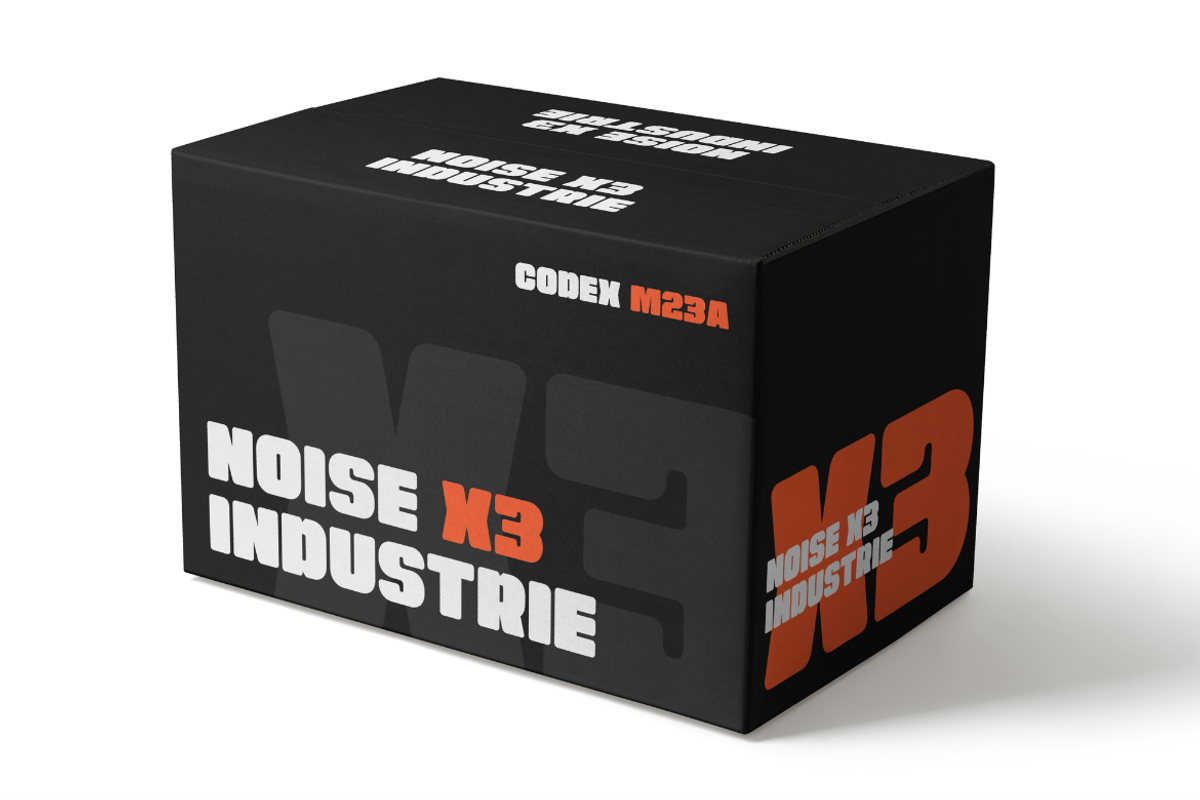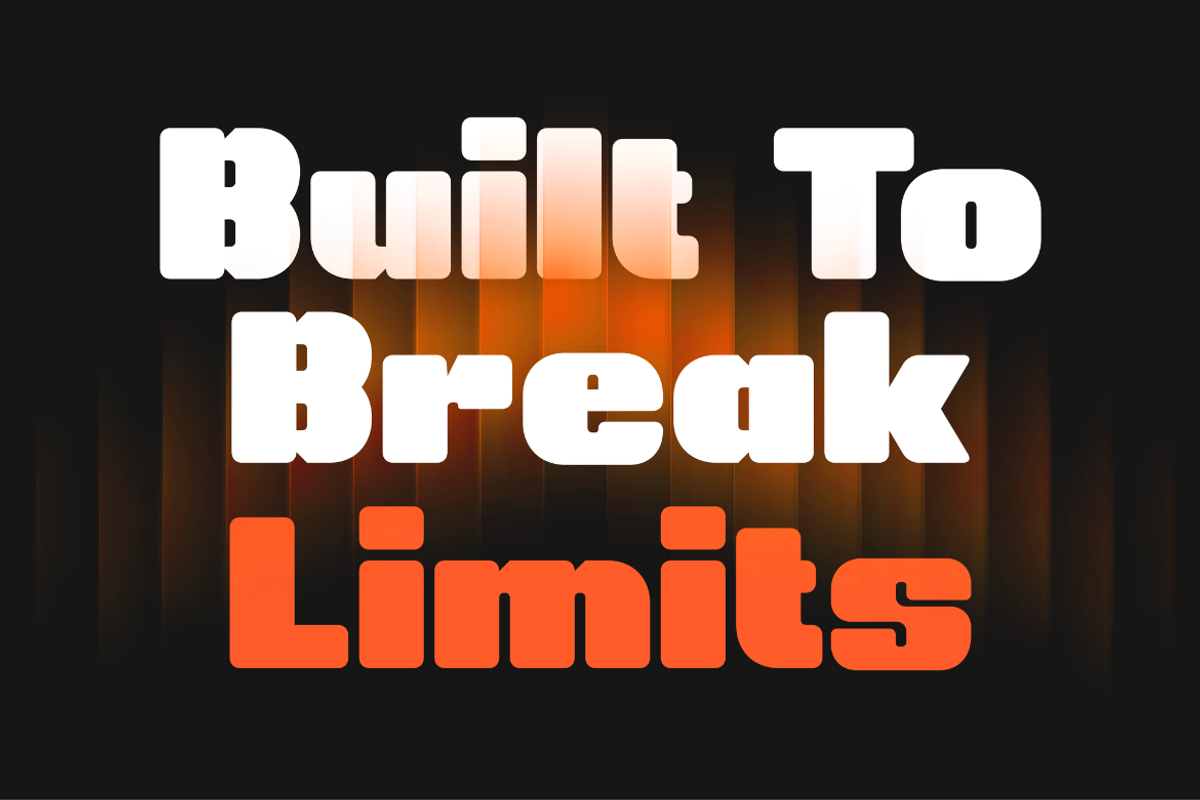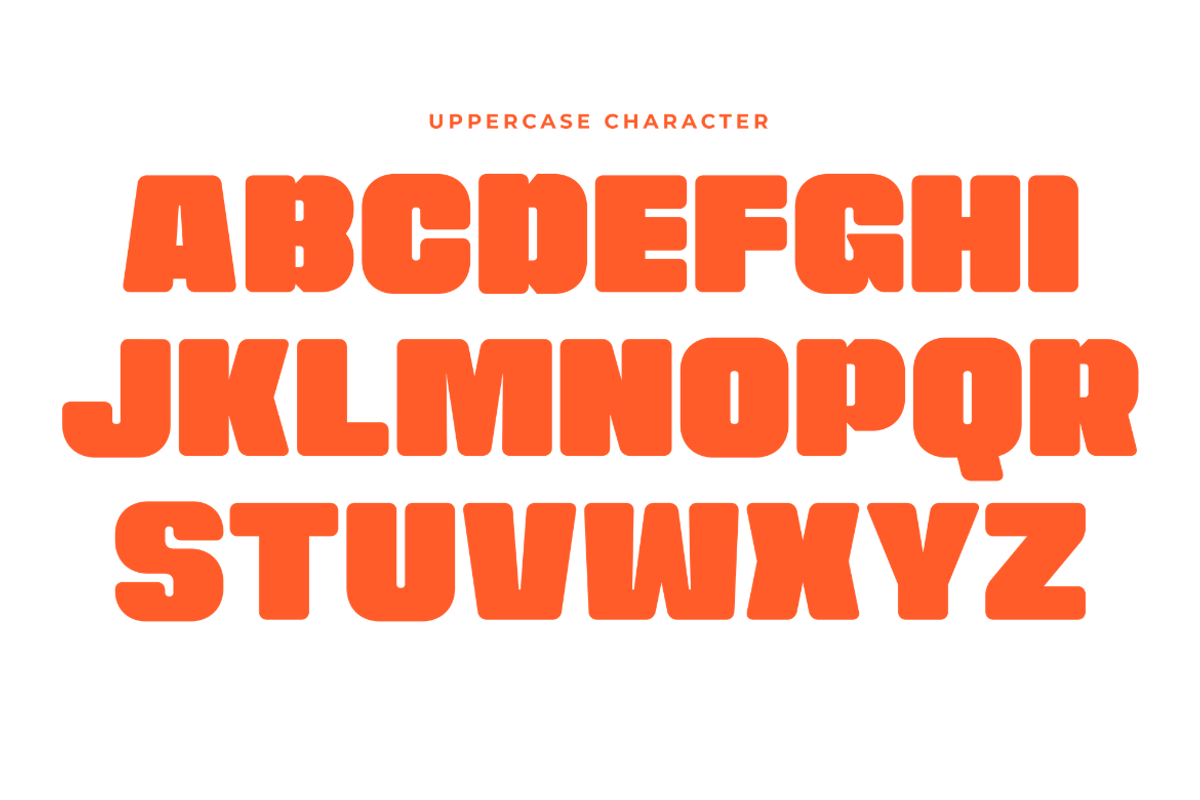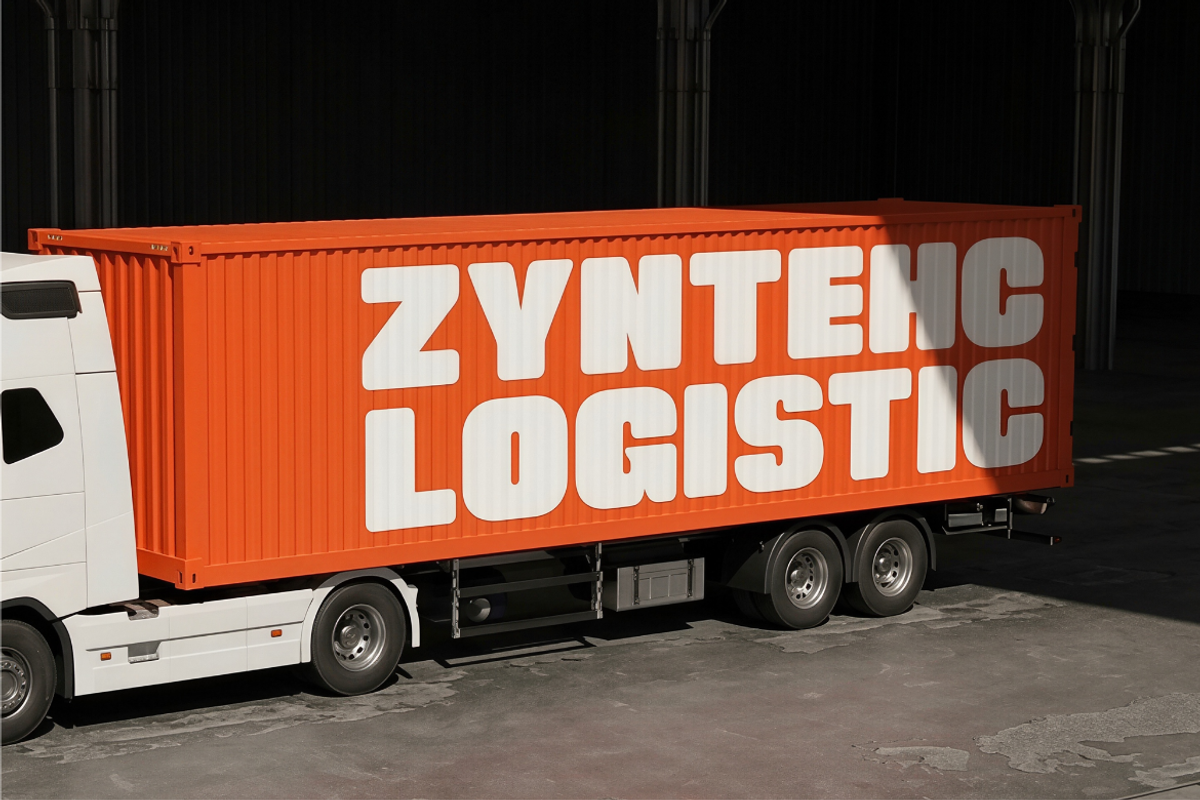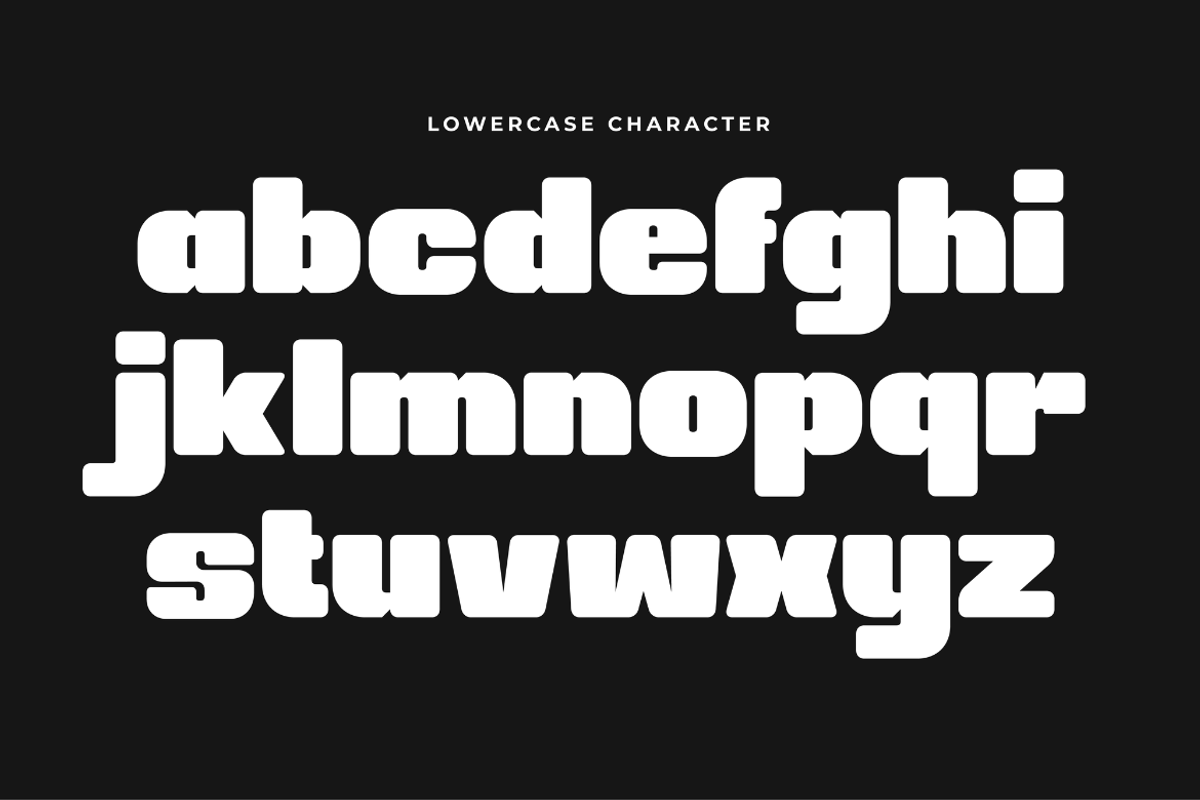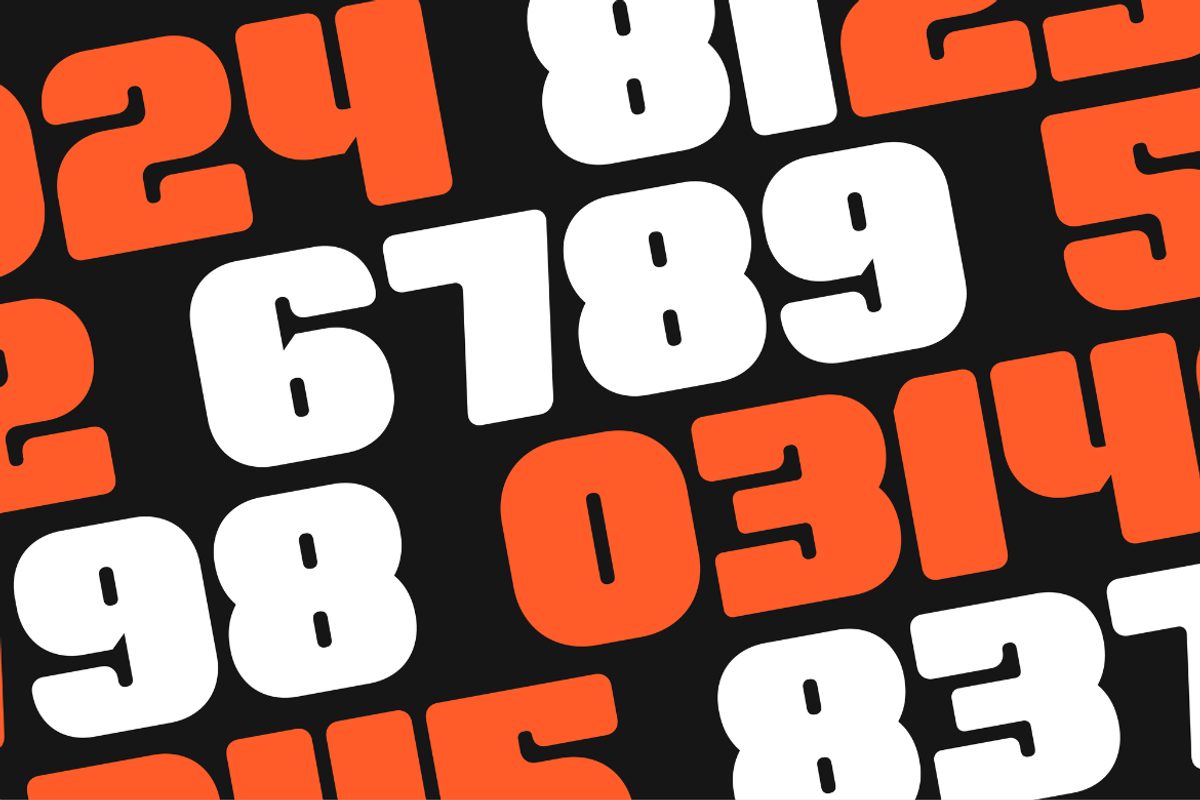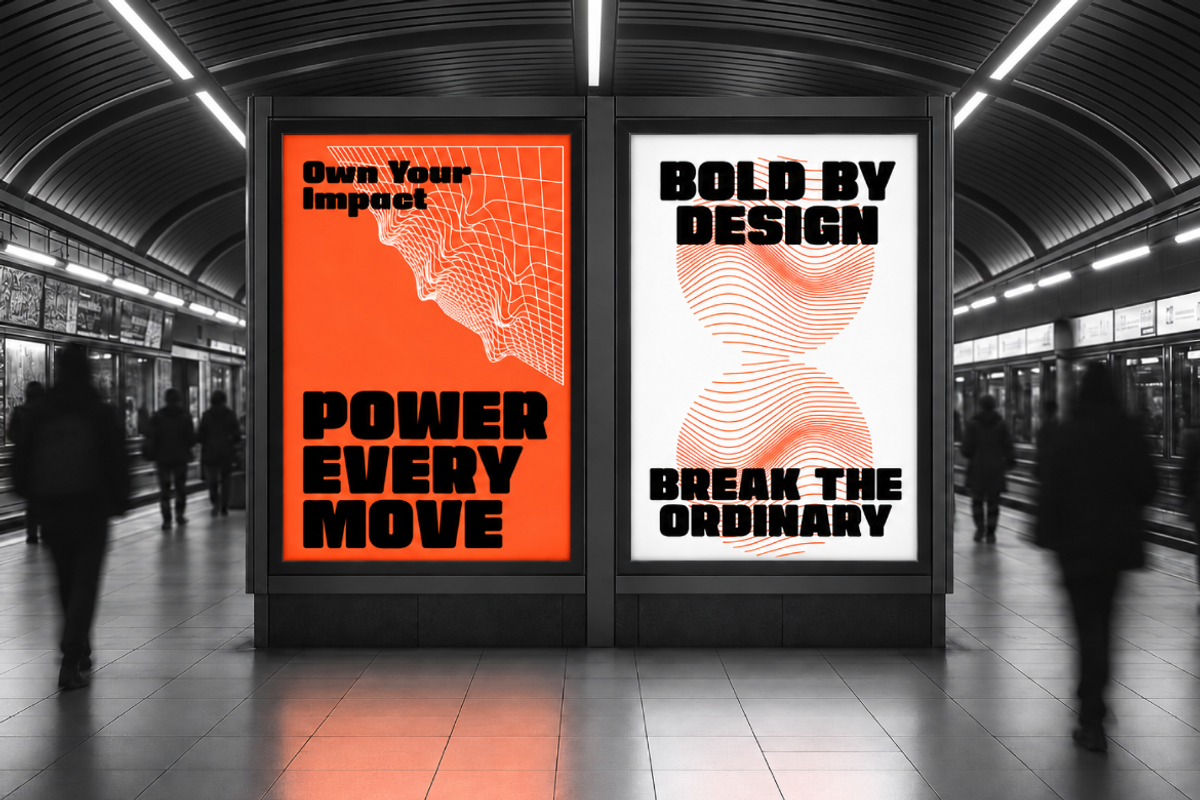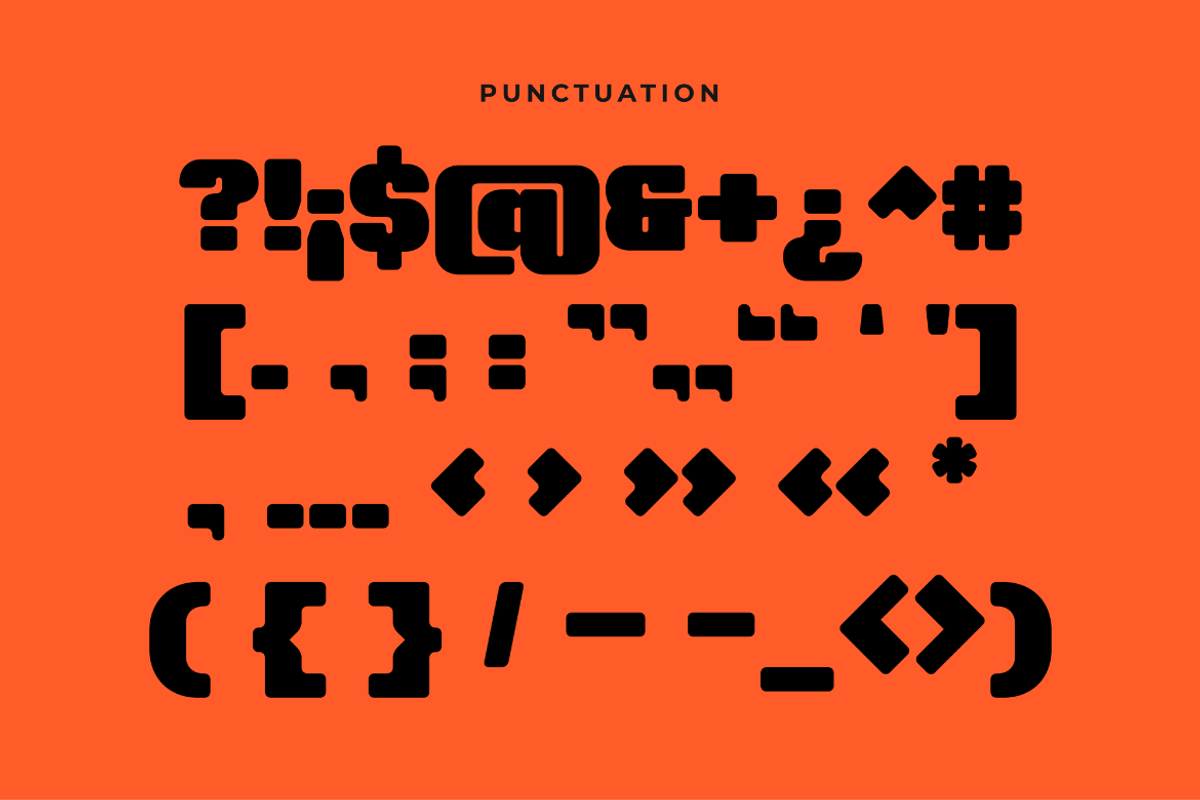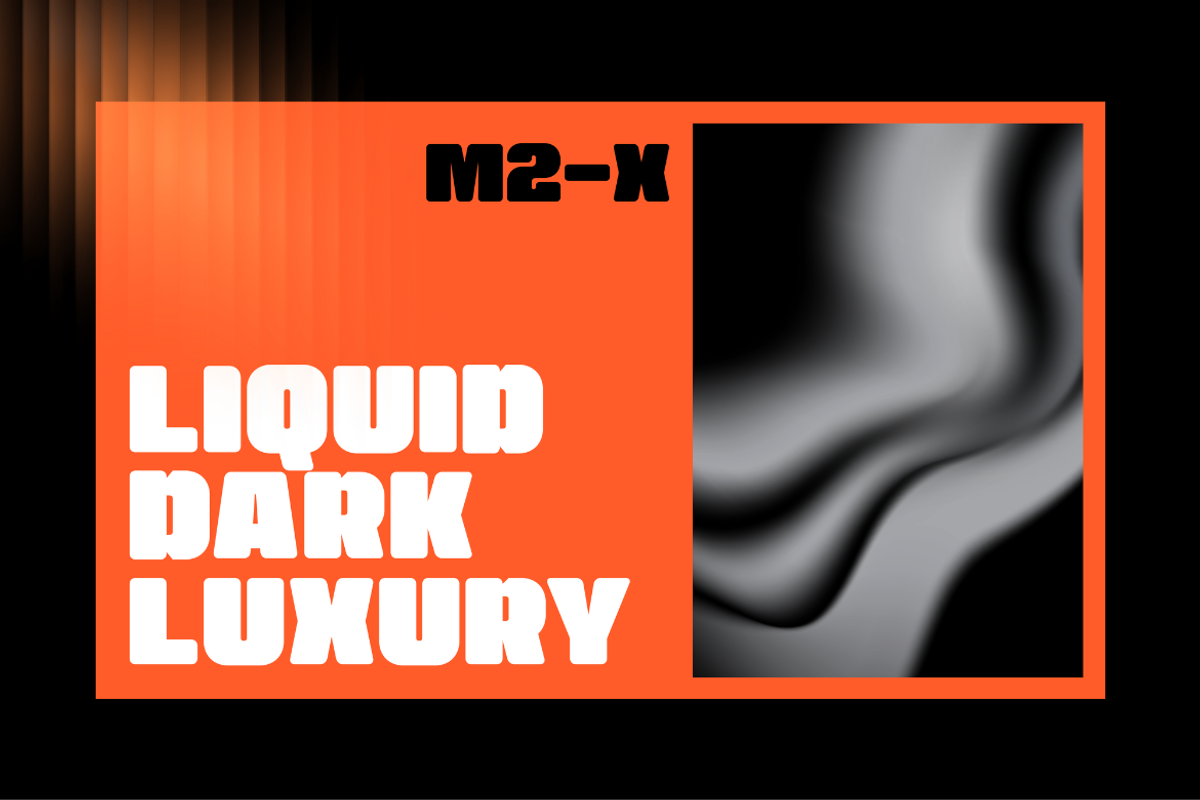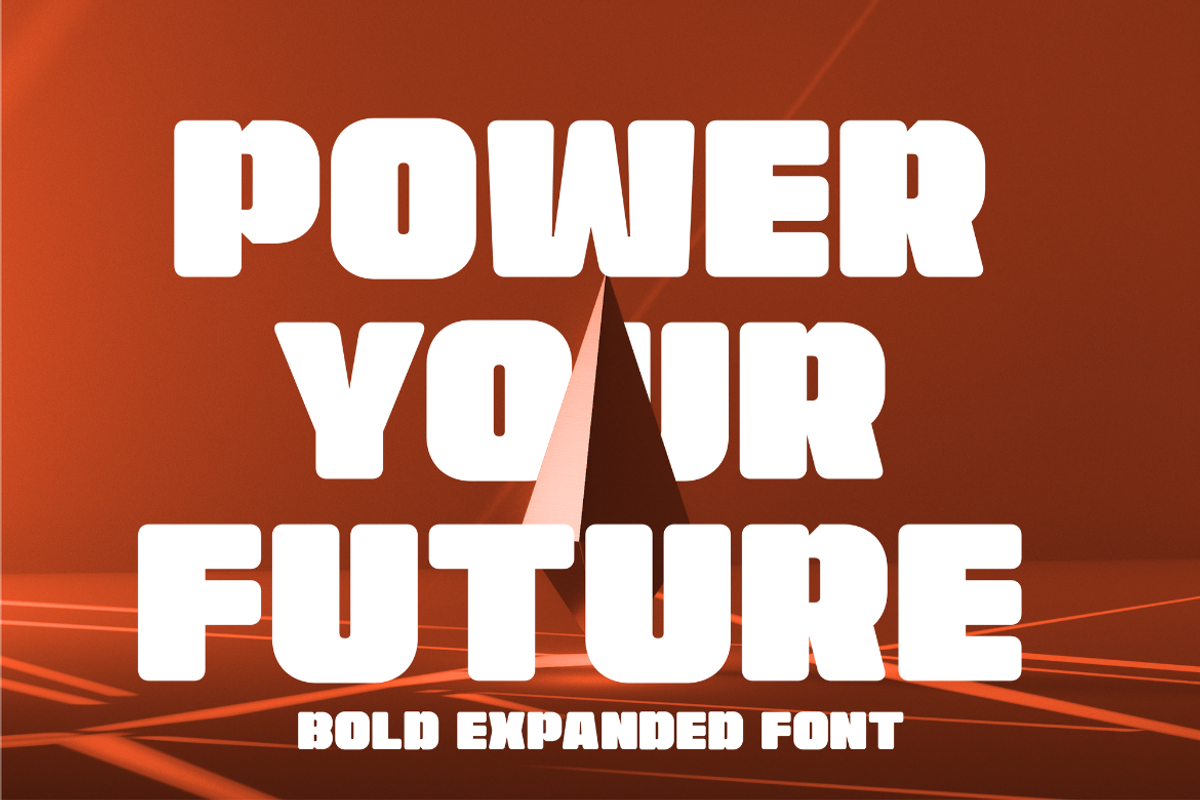
Forgetbolt
Forge Bolt is a heavy display sans-serif typeface with an extremely bold, rounded, and powerful appearance. The font is designed for maximum visual impact, featuring thick strokes, compact letterforms, and soft geometric corners that create a strong futuristic and industrial personality.
Its oversized structure gives a feeling of strength, energy, and durability, making it highly suitable for bold headlines and branding that needs a dominant presence.